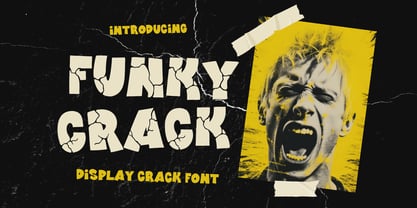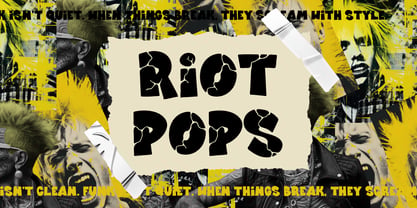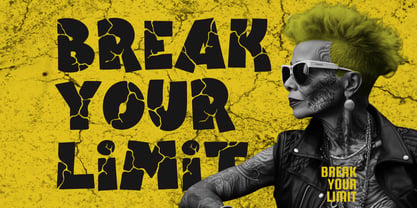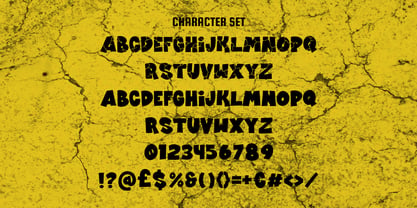
Funky Crack
by Shanaf
The Funky Crack Font Family was designed by Yesie Erma Yunita and published by Shanaf. Funky Crack contains 1 styles. More about this family
Designers: Yesie Erma Yunita
Foundry: Shanaf